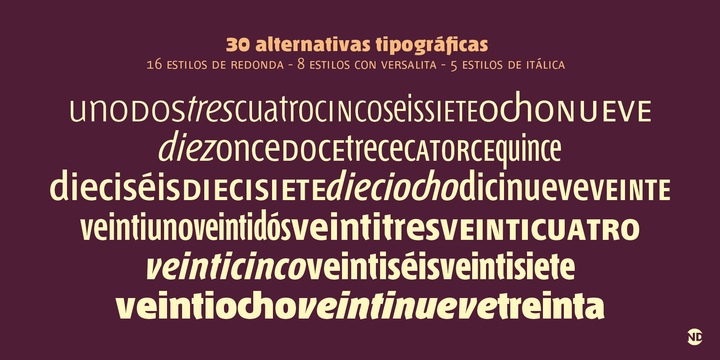
Fontana Font
This Fontana Font is perfect for Italian fountain designers, water feature companies, luxury spa resorts, elegant garden centers, architectural water elements, Mediterranean restaurants, Roman-inspired venues, classical landscape design, ornamental fountain manufacturers, and flowing water communications.
What makes this Fontana Font exciting is its flowing elegance that captures the graceful movement and timeless beauty of classical fountain design and water feature excellence. The font features fluid letterforms with fountain characteristics that convey water-inspired grace, Italian sophistication, and architectural elegance. Its flowing character and fountain-inspired design make it ideal for brands seeking to communicate architectural beauty, water feature excellence, and Italian elegance in landscape and hospitality markets.
The Fontana Font family includes light, regular, medium, and bold weights with flowing alternates, water-inspired variants, and architectural flourishes. This comprehensive elegant font family provides designers with graceful typographic tools to create fluid compositions while maintaining the fountain character essential for architectural brands and water feature communications.
Landscape architects and luxury resorts consistently choose Fontana Font Free Download for projects requiring authentic fountain appeal and architectural elegance. This font's distinctive flowing character perfectly captures the architectural excellence and water feature beauty that resonate with audiences who appreciate classical design, Italian craftsmanship, and brands that embody fountain elegance and architectural sophistication.
The graceful construction of Fontana Font showcases fluidly designed letterforms with fountain proportions that ensure exceptional elegance across all architectural applications. Its water-inspired appearance and flowing character create memorable impressions while maintaining the readability necessary for effective architectural communication and luxury materials.
Professional designers appreciate how Fontana Font brings immediate architectural authenticity and Italian elegance to brand communications. The font's flowing nature allows organizations to communicate fountain excellence and architectural beauty while maintaining the professional quality necessary for effective positioning in luxury landscape and architectural markets.
The sophisticated appeal of Fontana Font makes it particularly effective for brands emphasizing architectural water features, Italian design, and classical elegance. Its graceful character resonates strongly with audiences who appreciate fountain artistry, architectural beauty, and brands that represent the flowing grace and timeless elegance of classical fountain achievement.
Whether developing branding for fountain manufacturers or creating materials for luxury landscape architects, Fontana Font Free Download provides the elegant typographic foundation that architectural brands need to communicate their fountain excellence, Italian sophistication, and the flowing beauty that defines classical water feature design and architectural elegance achievement.